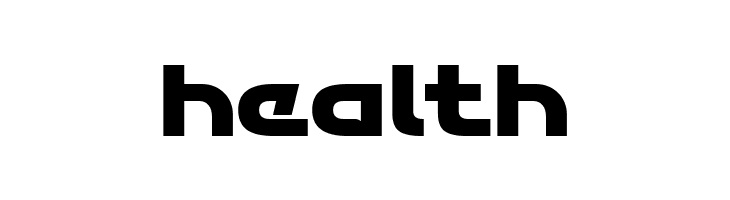
( Typopey - Reand Aghara - facebook.com/typopey )
A bold, futuristic font with sharp angles and geometric shapes.
( Typopey - Reand Aghara - facebook.com/typopey )
A bold, futuristic font with wide, angular letterforms and a sleek, modern aesthetic.
( Typopey - Reand Aghara - facebook.com/typopey )
A bold, futuristic font with sharp angles and geometric shapes.
( Typodermic Fonts - Ray Larabie - www.typodermicfonts.com/ )
A bold, geometric font with a futuristic and industrial design.
( Typodermic Fonts - Ray Larabie - www.typodermicfonts.com/ )
A bold, angular font with a futuristic and edgy style.
( Typodermic Fonts - Ray Larabie - www.typodermicfonts.com/ )
A bold, pixelated font with a futuristic, digital aesthetic.
( Typodermic Fonts - Ray Larabie - www.typodermicfonts.com/ )
A bold, geometric font with strong, rounded characters and a modern style.
( Typodermic Fonts - Ray Larabie - www.typodermicfonts.com/ )
A bold, geometric font with strong circular and angular forms.
( Typodermic Fonts - Ray Larabie - www.typodermicfonts.com/ )
A bold, 3D hollow font with a geometric and retro-futuristic style.
( Typodermic Fonts - Ray Larabie - www.typodermicfonts.com/ )
A modern, stencil-like font with bold geometric shapes and sharp edges.
Recent favorites include Aghara Std, Aghara Wide, Aghara Pro, ZelegaZenega-Regular and YytriumFront-Regular. They balance clarity and personality, working well for tech brands, editorial layouts, and social visuals.